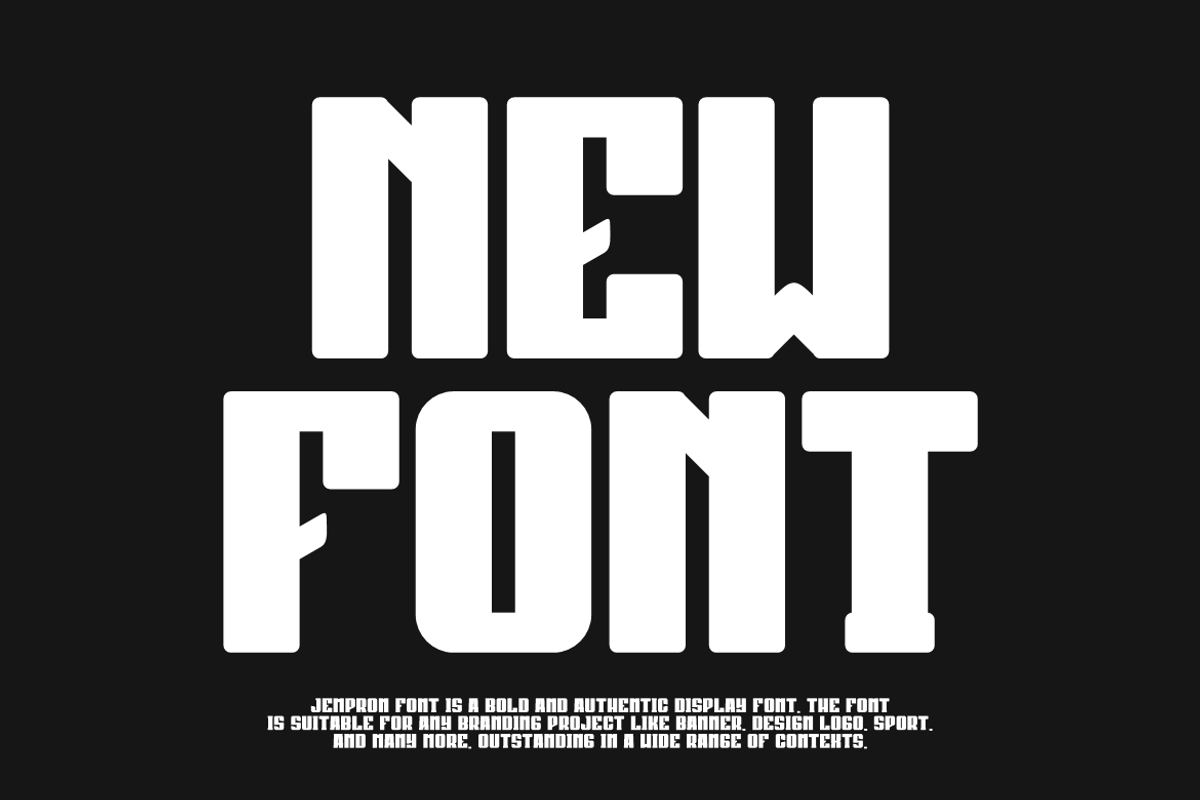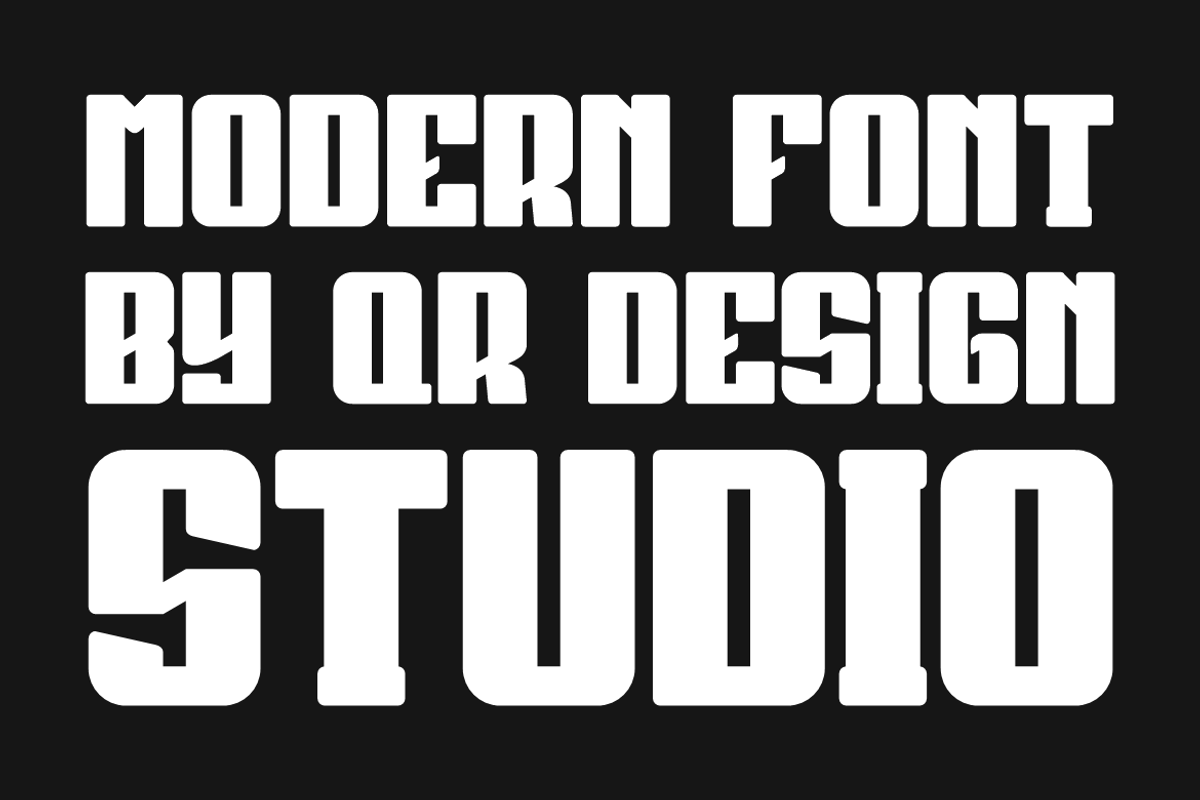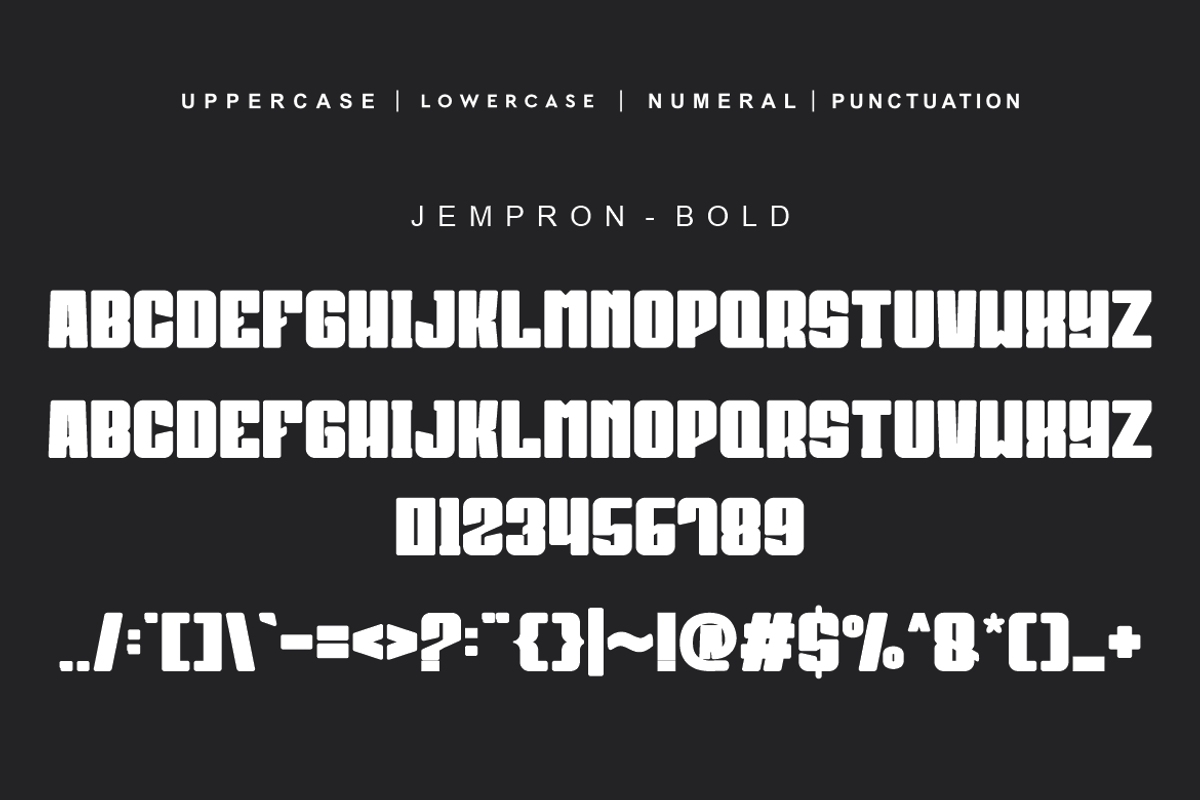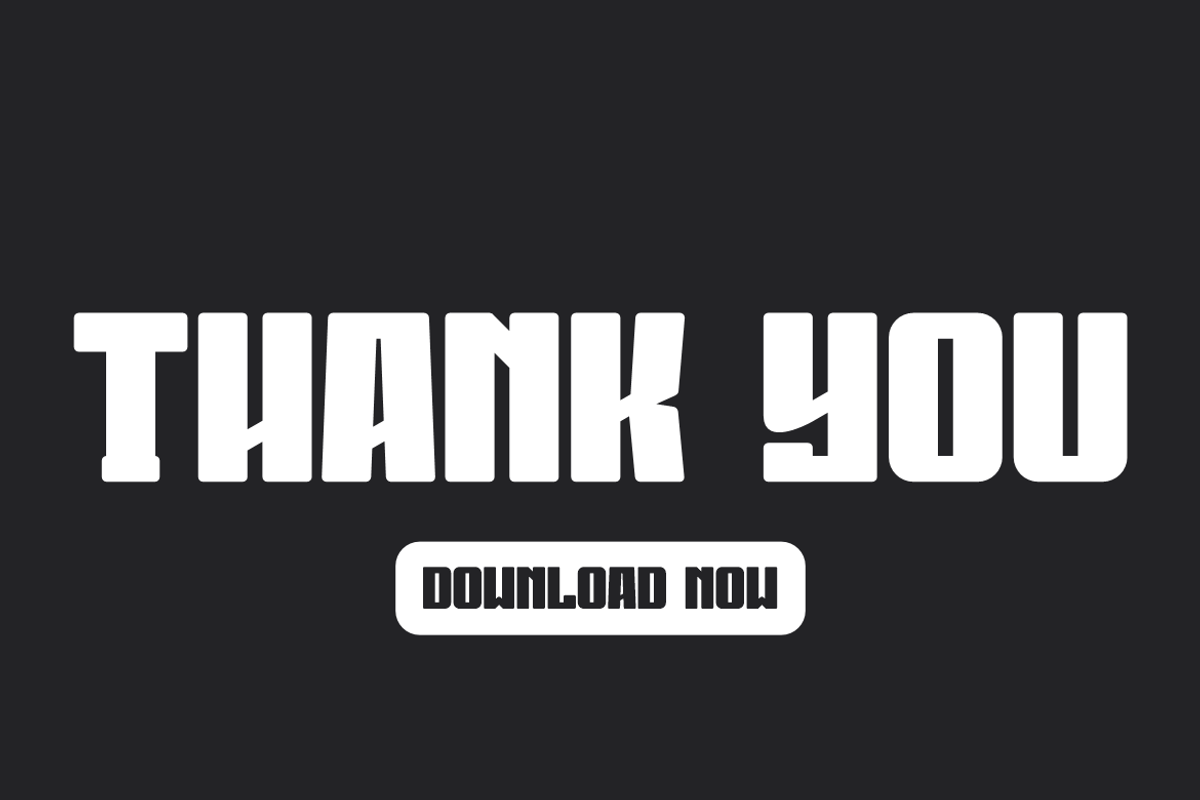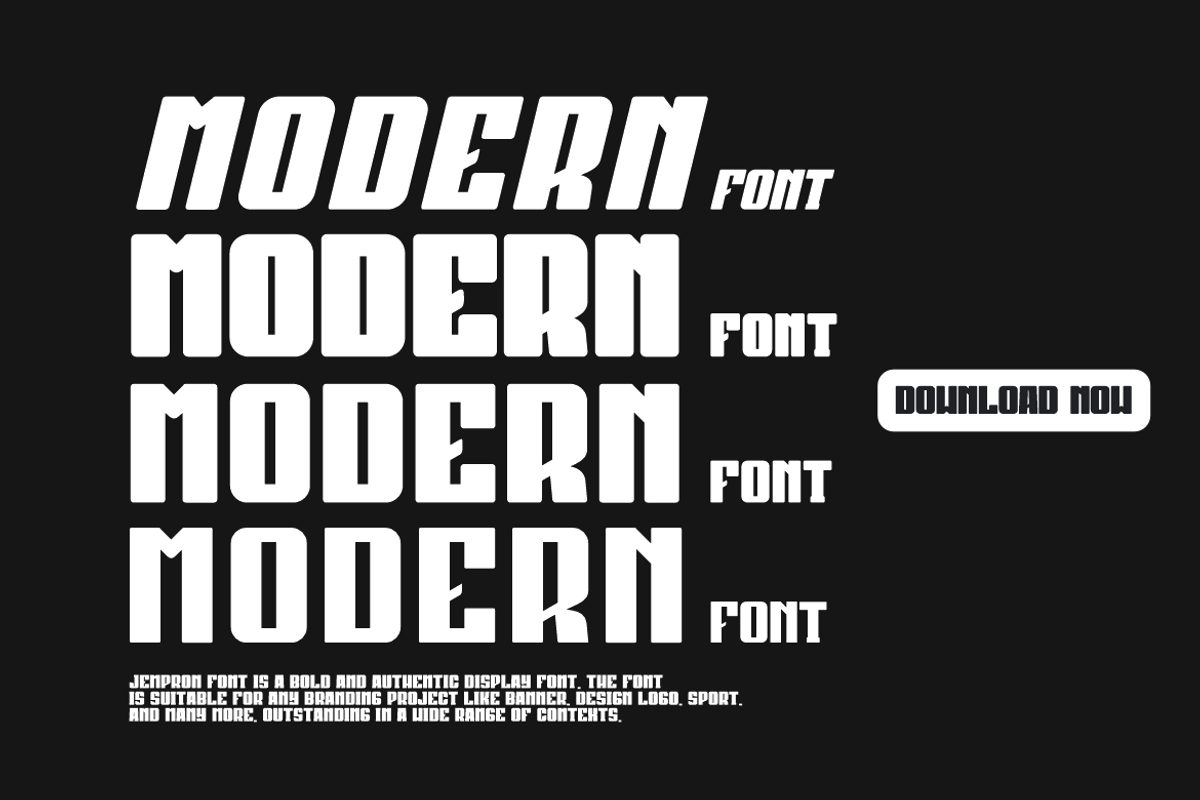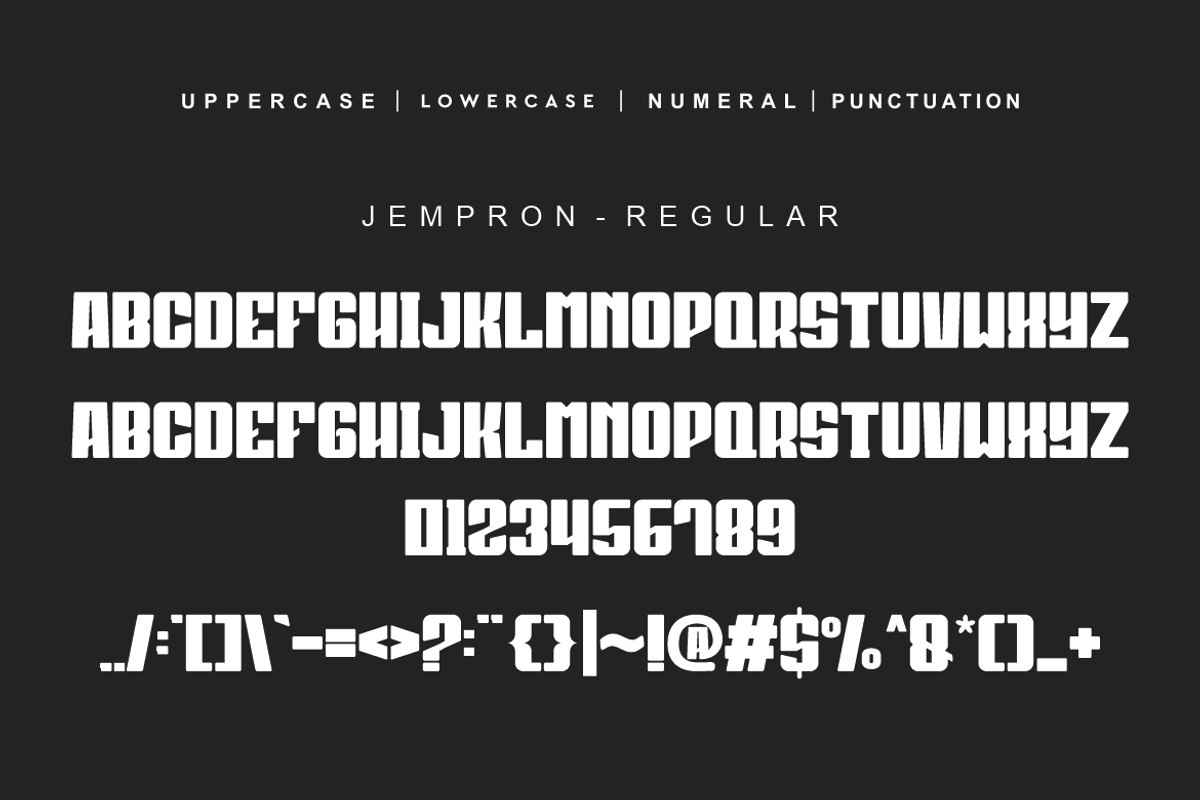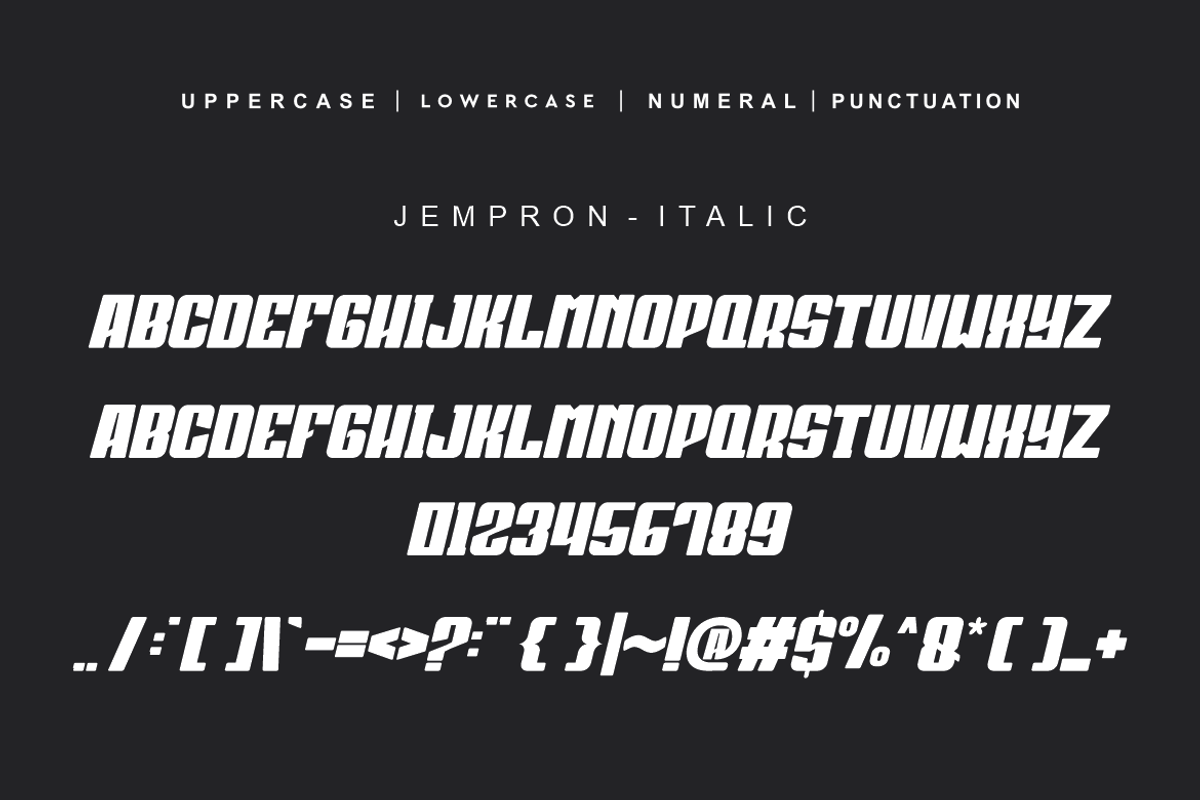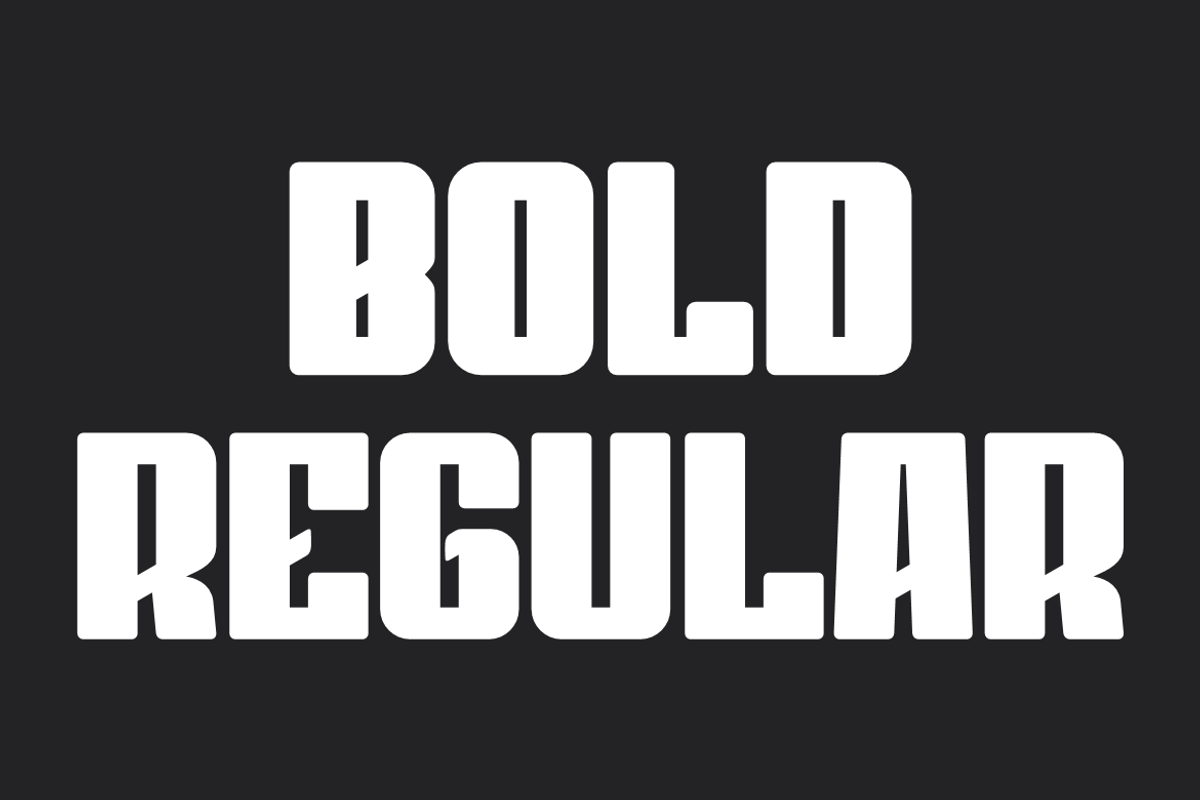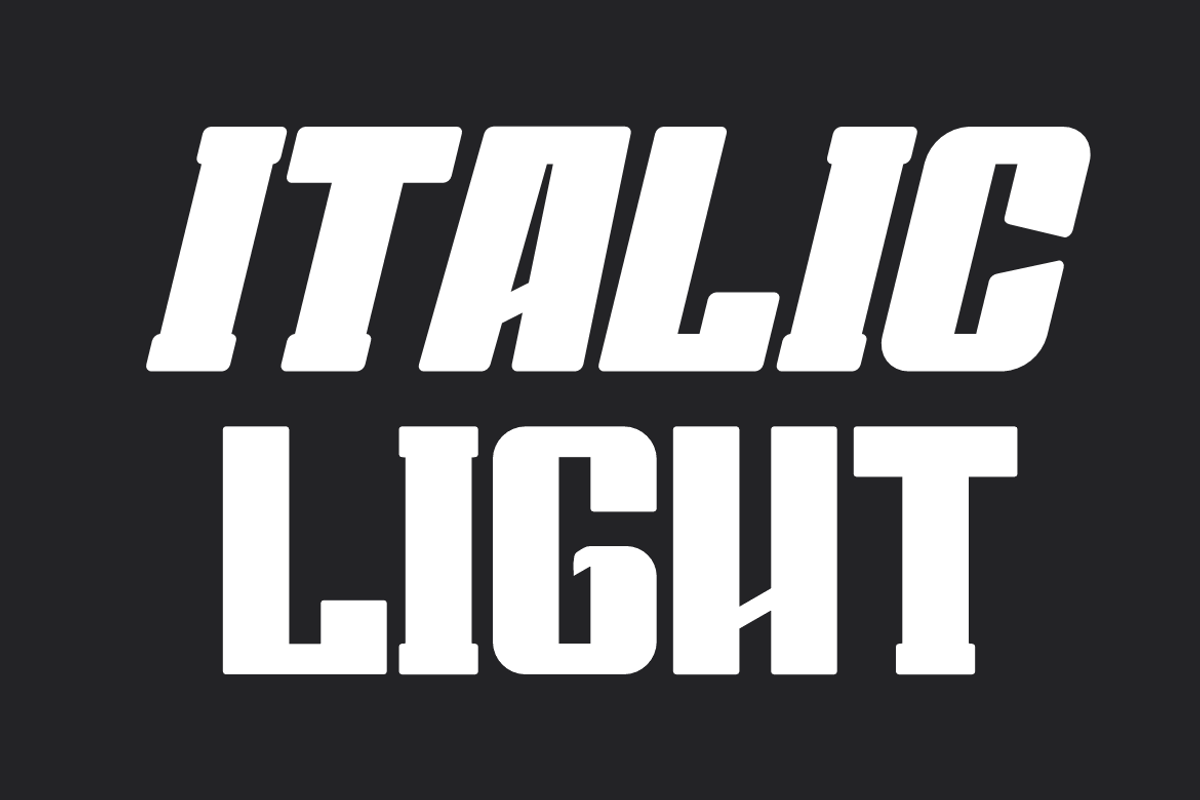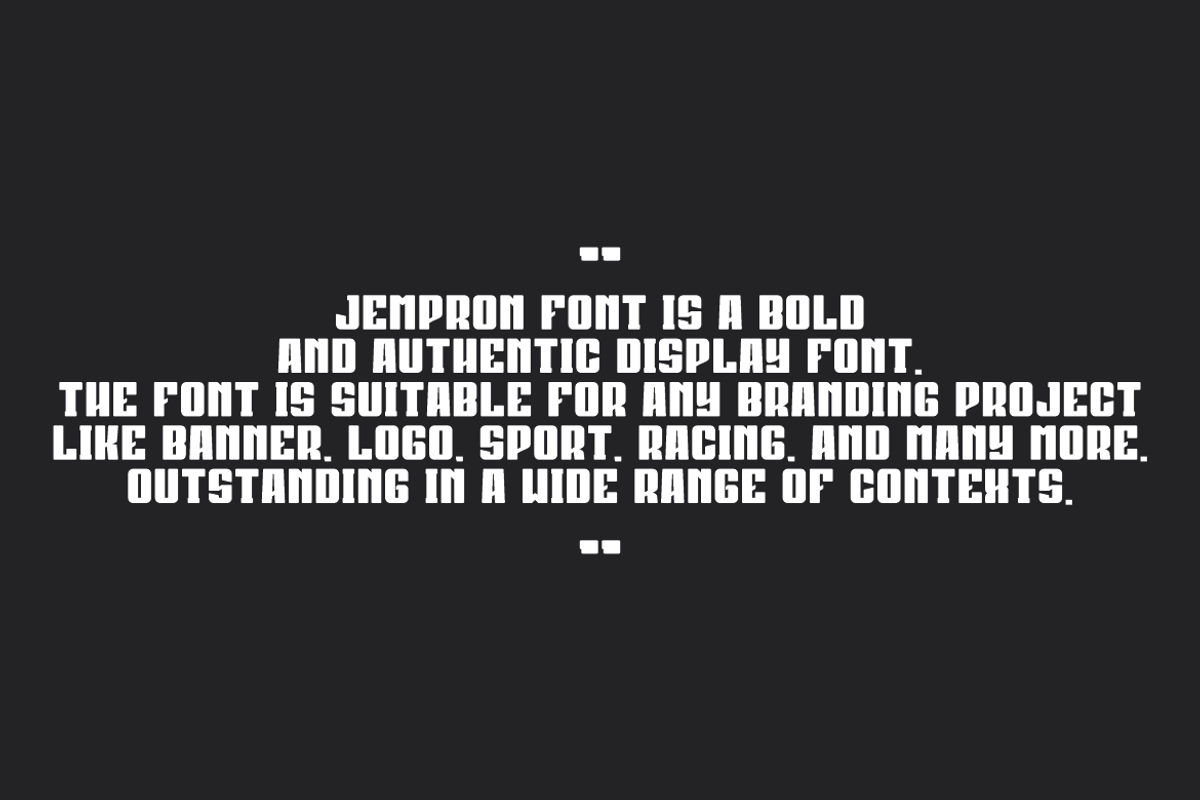
Jempron Font Bundle
Jempron Bundle Font is a bold and authentic display font. The font is suitable for any branding project like logo, sport, and many more. Outstanding in a wide range of contexts.